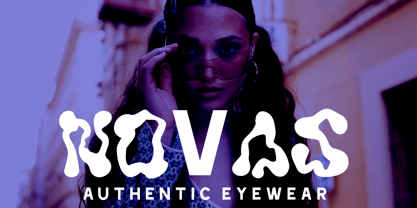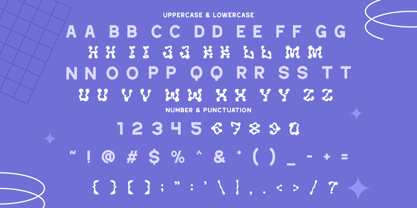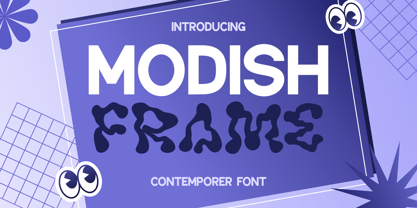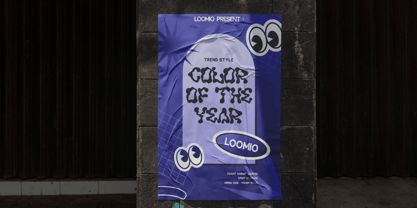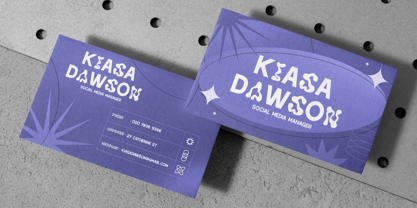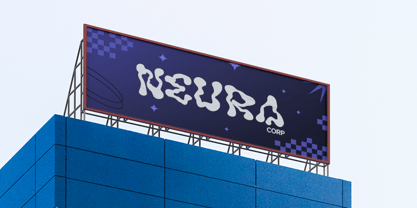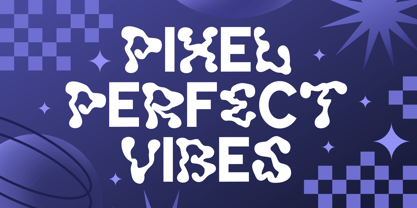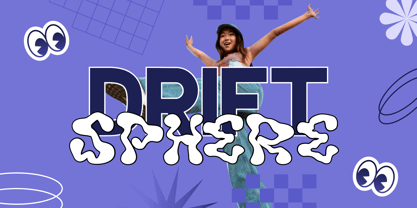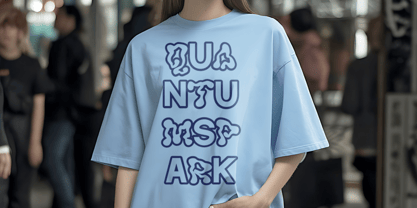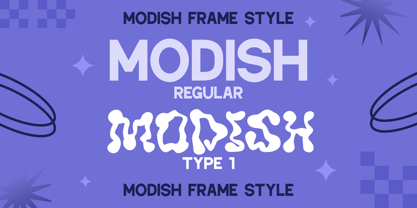
Modish Frame
by Shanaf
The Modish Frame Font Family was designed by Yesie Erma Yunita and published by Shanaf. Modish Frame contains 2 styles and family package options. More about this family
Modish Frame is a one-of-a-kind contemporer display font that effortlessly fuses futuristic oddity with expressive design. Each letterform features fluid, organic shapes that resemble melting pixels or soft plastic morphing into bold silhouettes. This abstract letter anatomy captures attention and challenges conventional typographic rules, making it a strong visual identity tool for progressive branding, trendsetting packaging, or youth-focused campaigns. Its balance between legibility and expressive abstraction makes it ideal for creators looking to break the mold.
This font thrives in dynamic applications—from editorial layouts and bold posters to experimental logos and lifestyle merchandise. As seen in its mockups, Modish Frame elevates both print and digital designs, whether it’s a fashion-forward business card, a zine cover, or social media assets. It pairs beautifully with clean sans-serif fonts to add contrast while reinforcing the voice of innovation and creativity. Let your brand or project speak loud with an artistic statement that commands attention.